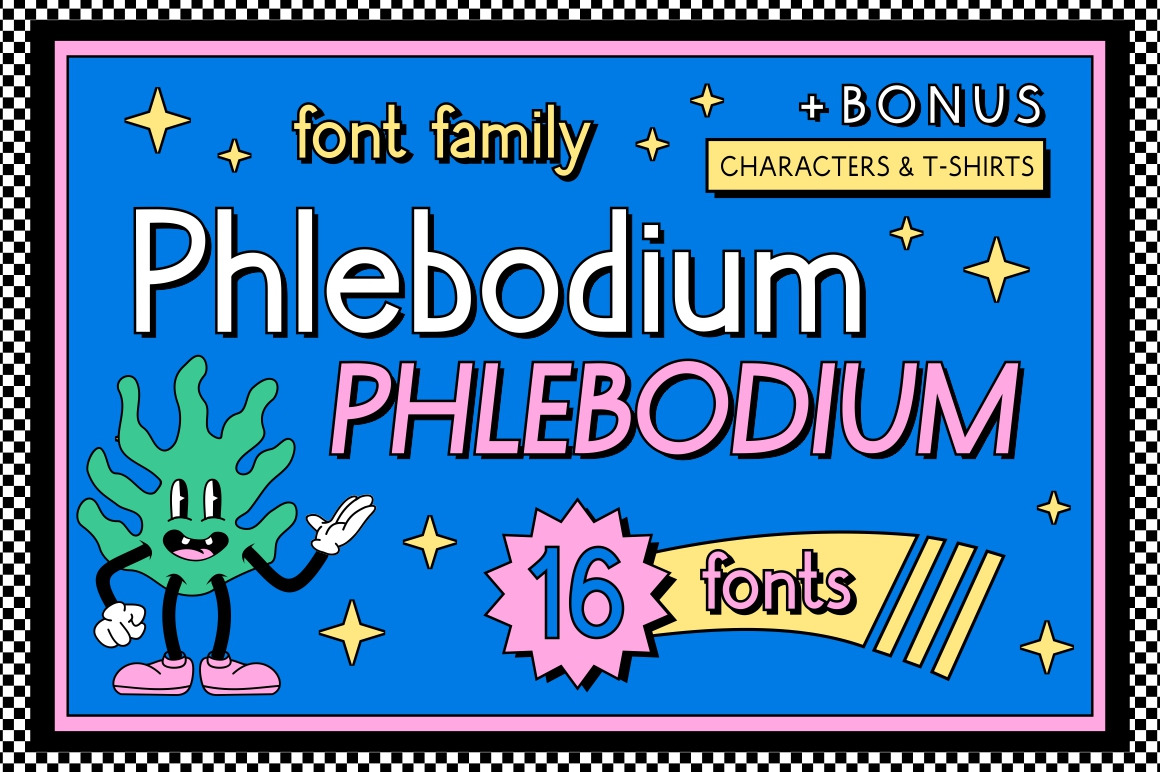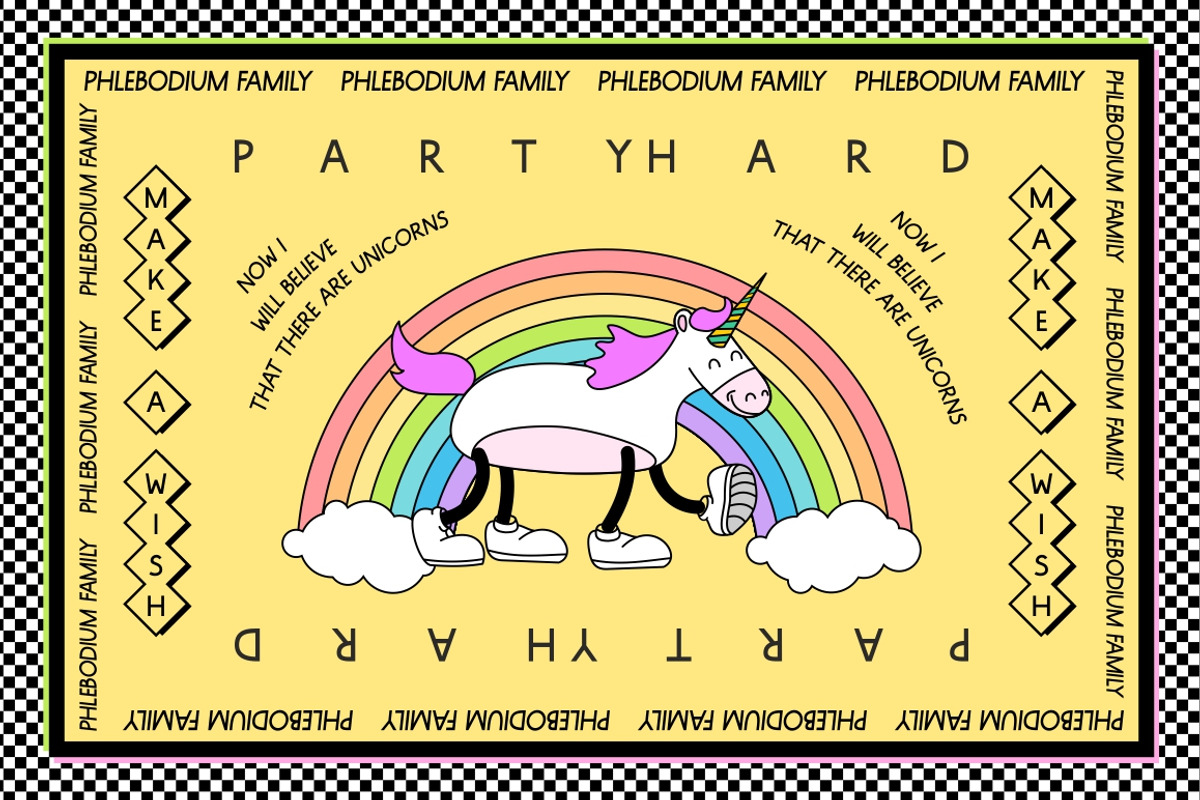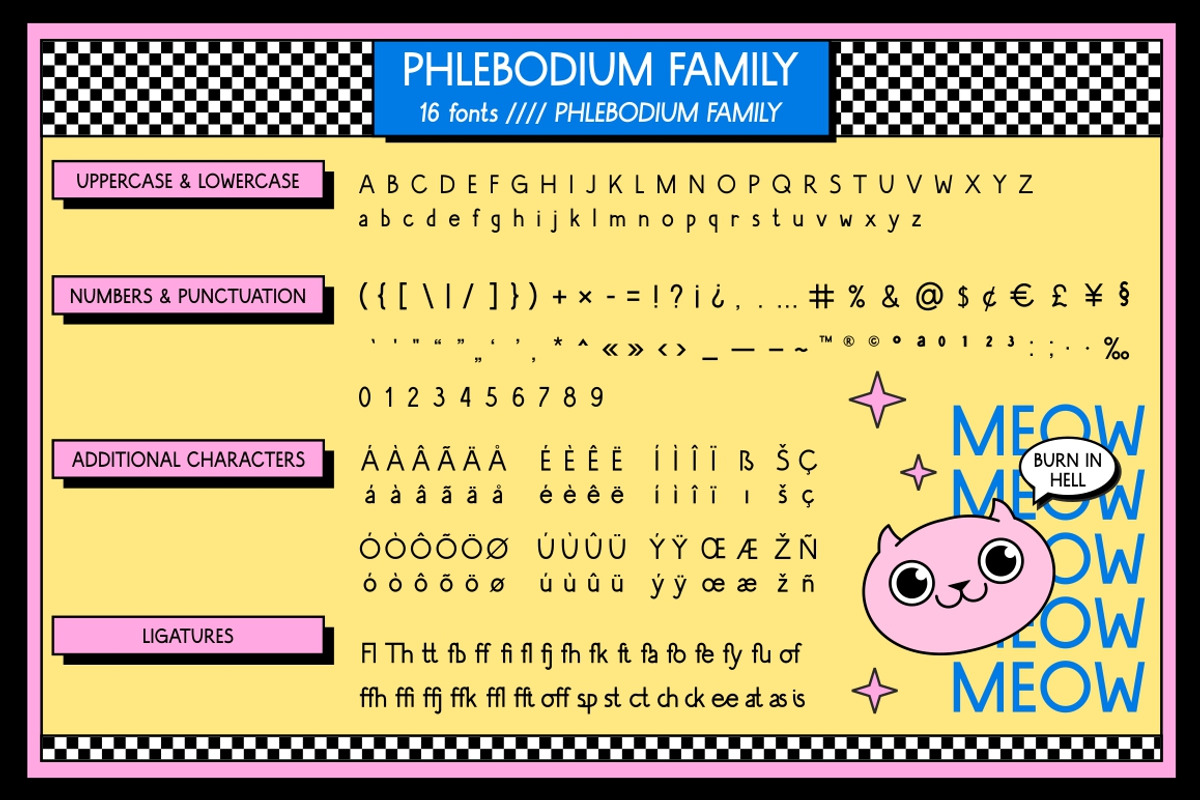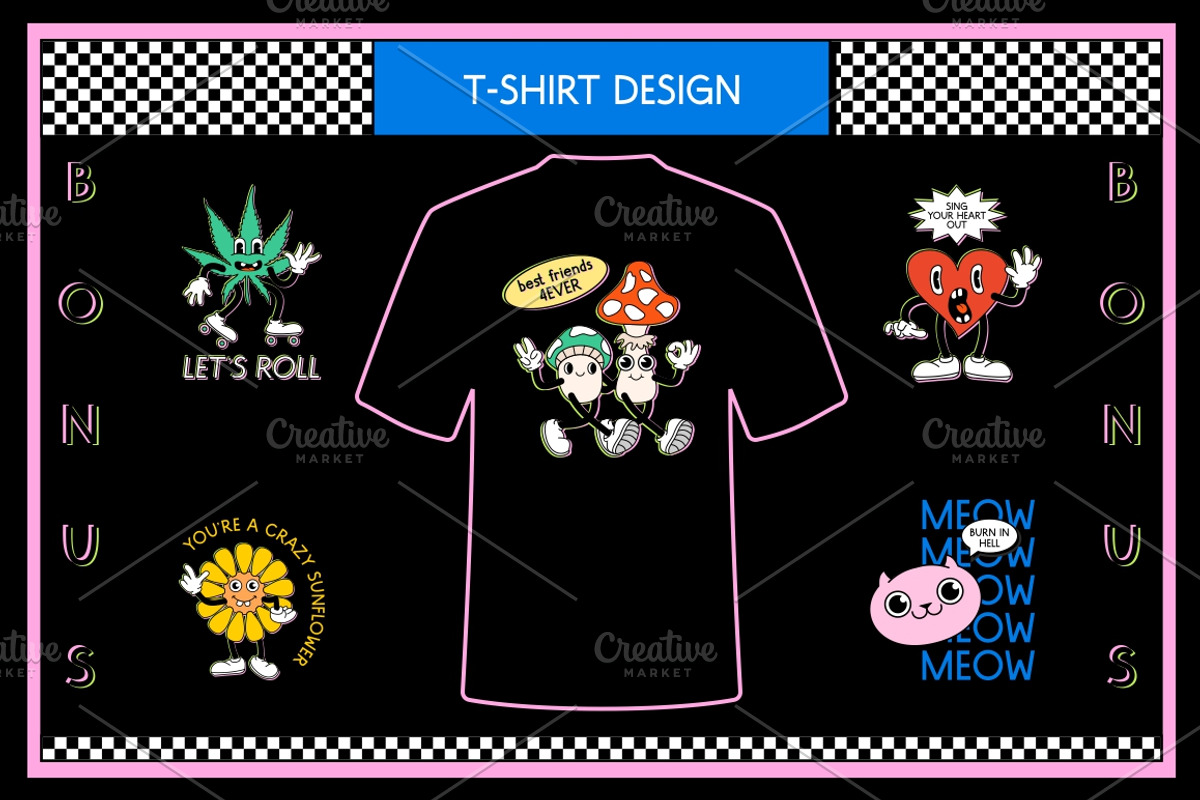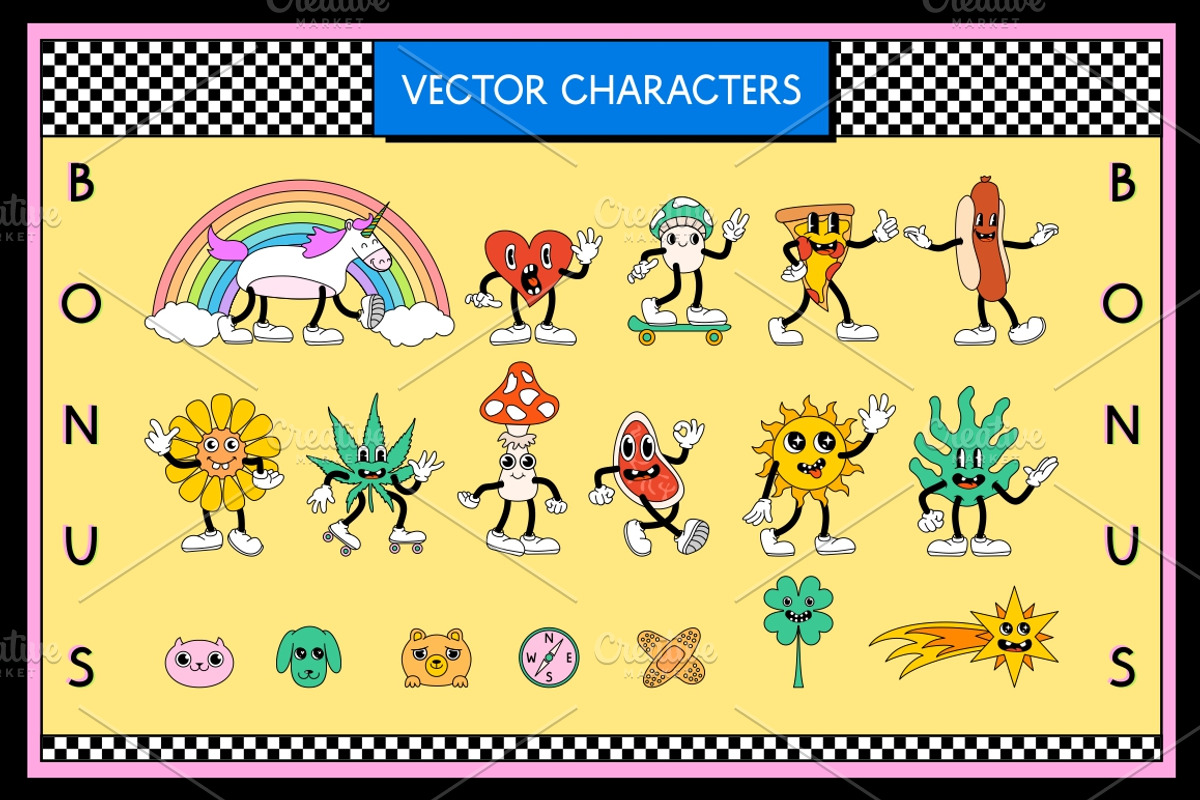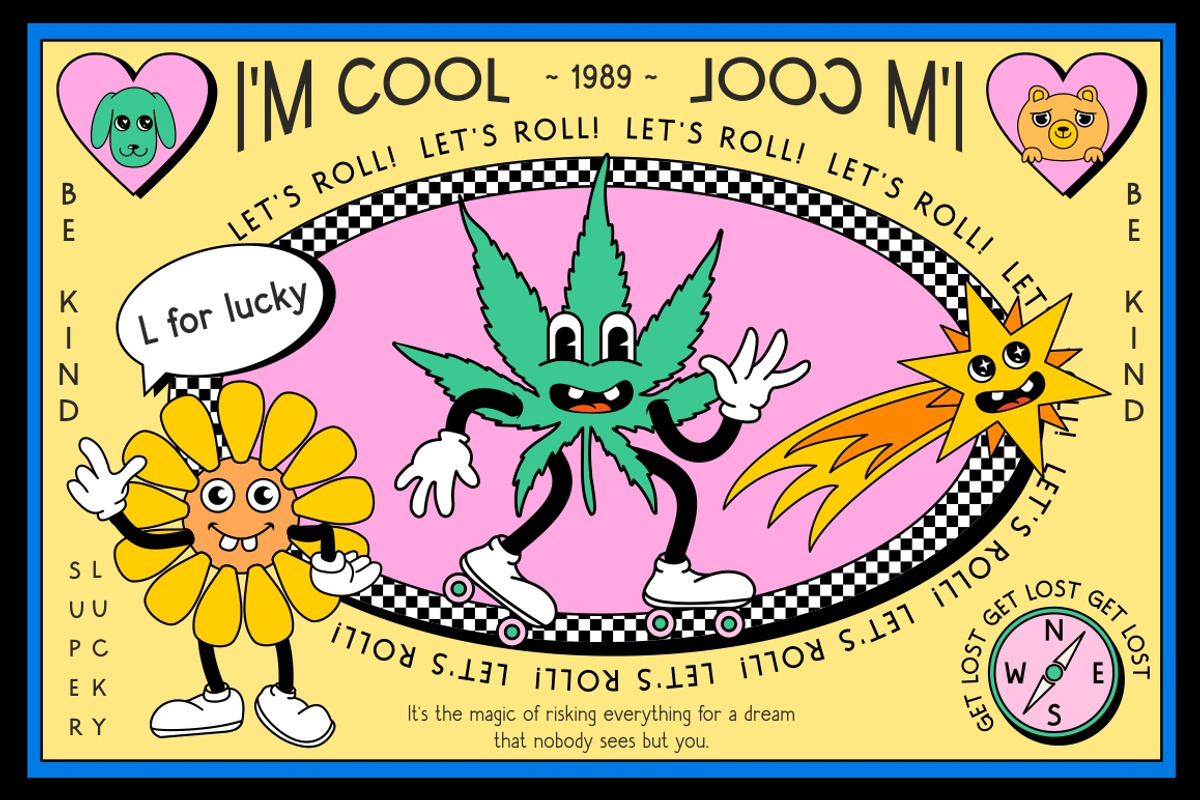
Phlebodium sans serif font 80s 90s
Phlebodium - geometric sans serif typeface, 16 fonts
Phlebodium is a modern geometric sans serif font family. Nostalgic, soft and playful font in 80s 90s 2000s techno rave style. BONUS: vector cannabis / hemp leaf, sunflower, mushroom / fungus, meat, unicorn, heart, pizza, hot dog, sun, phlebodium, clover, dog, cat, bear, sun character mascot illustrations and t-shirt designs
This bold typeface is ideal for use in display sizes. Perfect for headlines and logos, text blocks, any type of graphic design, printing, t-shirts, posters, branding, web and applications, social media and many more
Phlebodium typeface contains 4 weights, normal, condensed and italic styles